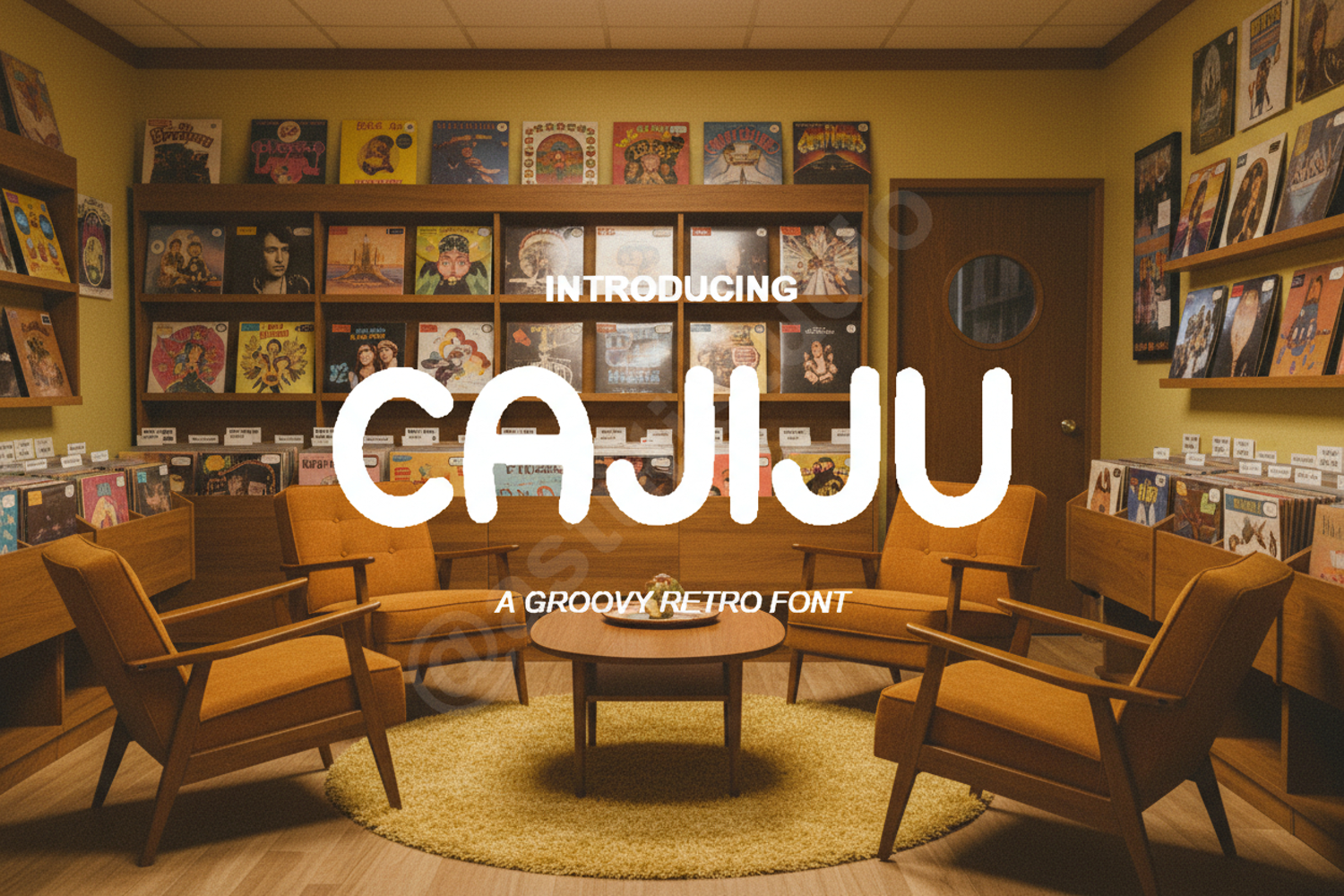
Cajiju - Modern Geometric Sans Serif
Cajiju
Experience the perfect blend of precision and style with Cajiju. This modern geometric sans serif font is meticulously crafted to bring a clean, professional edge to any creative project. Whether you are building a brand from the ground up or looking for a reliable display typeface, Cajiju offers the versatility and premium quality required for high-end design.
- Full uppercase and lowercase character sets
- Comprehensive numbers and punctuation
- Multilingual support for global accessibility
- Professional Branding and Visual Identity
- Minimalist Logo Design
- Editorial Layouts and Magazine Spreads
- Modern Website Headers and UI Design
- Corporate Presentations and Stationery
- Social Media Graphics and Advertising